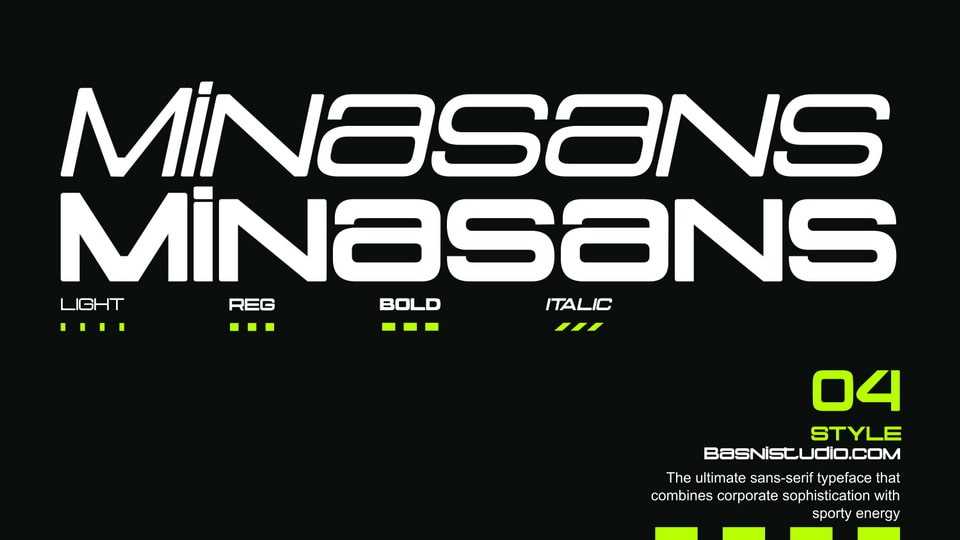
Download Minasans font, the ultimate sans-serif typeface that combines corporate sophistication with sporty energy, designed for brands that mean business.